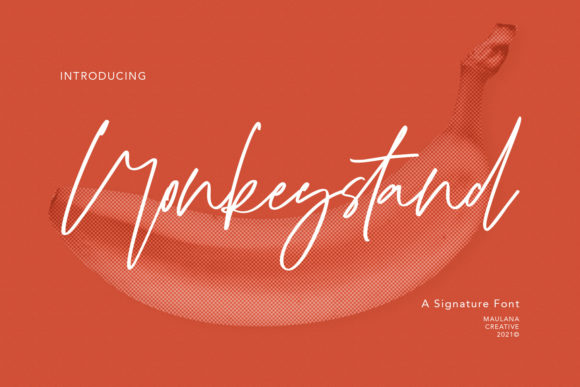
Welcome to the world of Monkeystand Font, an exquisite masterpiece that will enchant your creative journey. Immerse yourself in the realm of elegance and sophistication with this captivating script font.
At Monkeystand Font, we've meticulously crafted this typeface to capture the essence of personal letters, where heartfelt emotions and profound messages find their perfect vessel. With its charmingly slim and graceful flow, Monkeystand Font gracefully dances across your screen, leaving an indelible mark on the hearts of your readers.
Indulge in the endless possibilities that Monkeystand Font brings to your creative endeavors. Design invitations that radiate warmth and charm, craft letters that exude sincerity and grace, or create social media posts that shimmer with eloquence. Let your imagination soar as you witness the transformative power of Monkeystand Font, turning your words into visual symphonies.
As a creation of Maulana Creative, Monkeystand Font embodies the essence of artistic passion and dedication. Each stroke, each curve, and each letterform has been meticulously designed to evoke emotions and convey messages with unparalleled clarity and beauty.
Step into the realm of visual enchantment with Monkeystand Font. Embrace the magic of handwritten elegance and experience the sheer joy of creating designs that captivate and inspire.